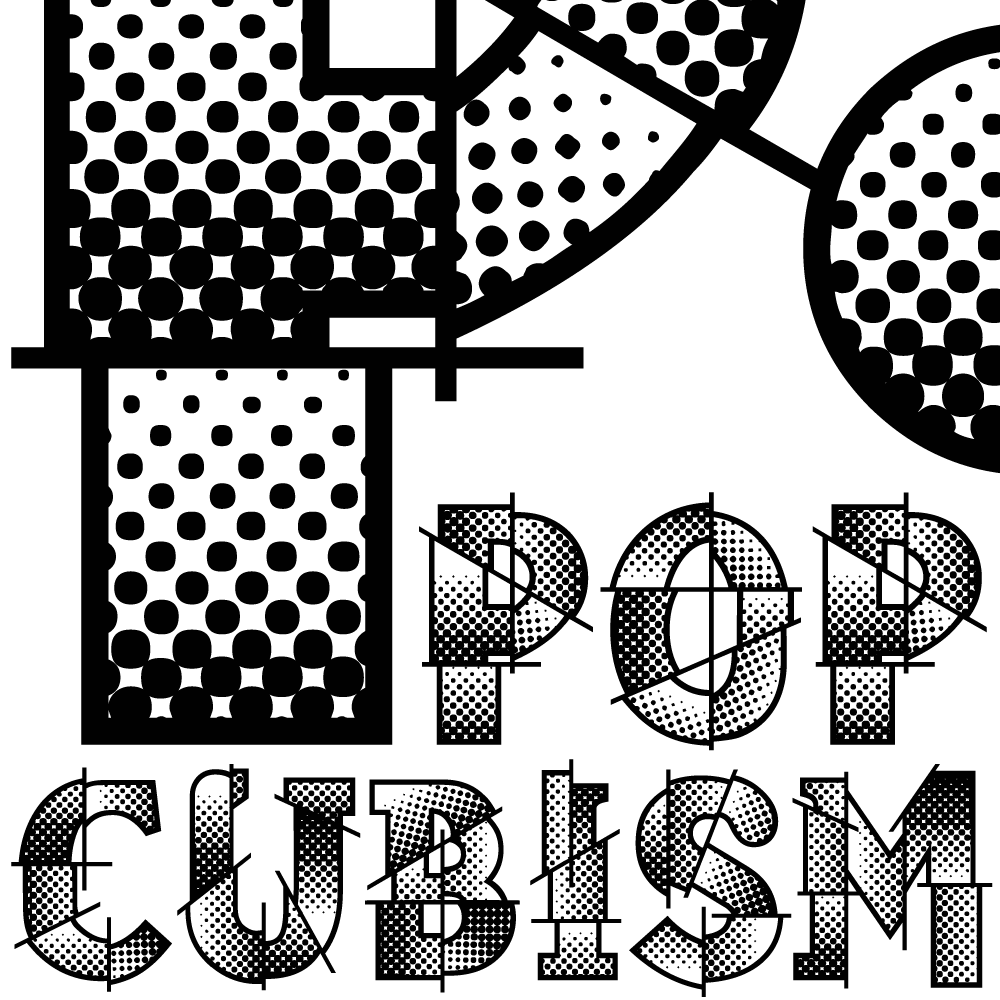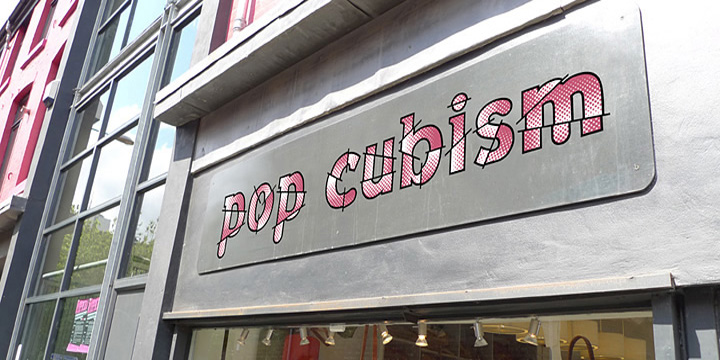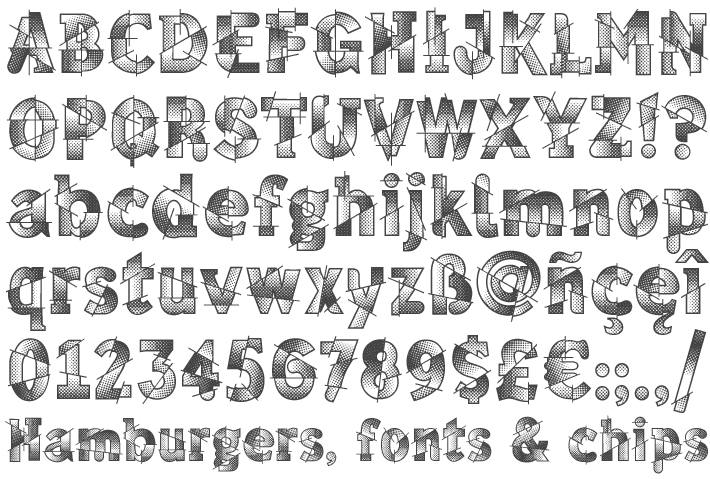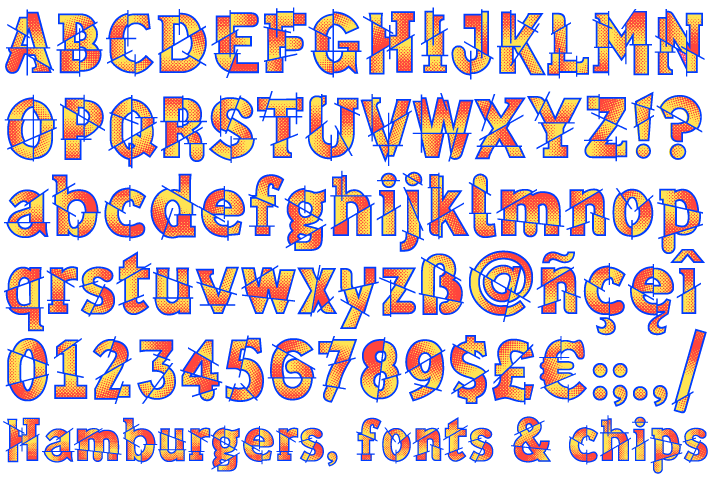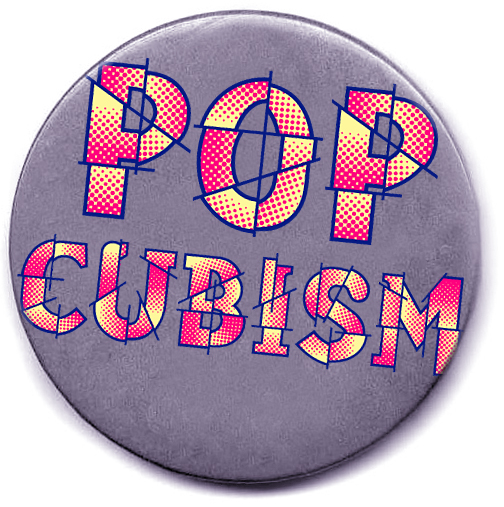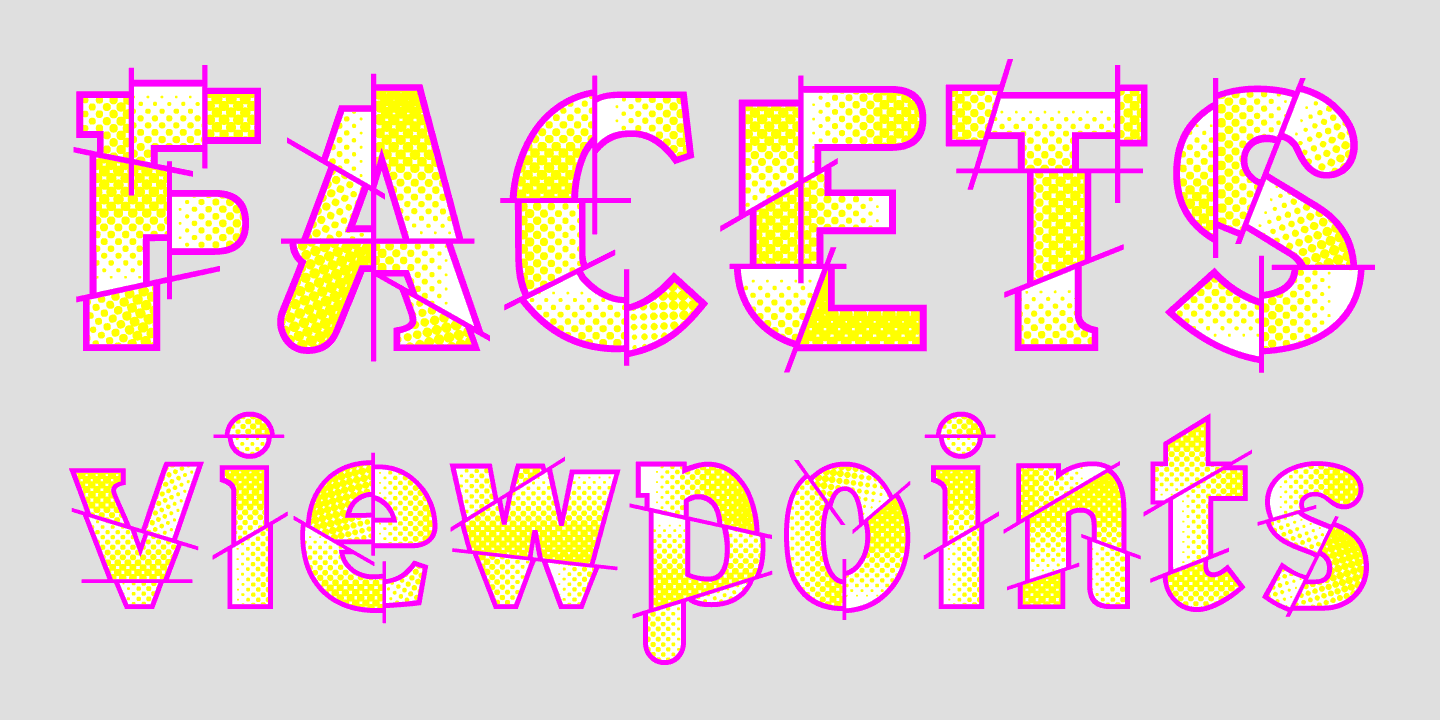
Pop Cubism
The Pop Cubism fonts are inspired by Roy Lichtenstein who combined the strong outlines and benday dots of Pop Art with the fragmented viewpoints and facet line divisions of Cubism. The bold letterforms are derived from a variety of styles, both serif and sans, angular and rounded.
Four fonts are included:
Pop Cubism Shaded contains the lines and dot tones for use in a single color.
Pop Cubism Outline, Pop Cubism Halftone Underlay, and Pop Cubism Color Underlay are a Color Kit – three fonts for overlaying different colors of lines, dot tones, and background color.